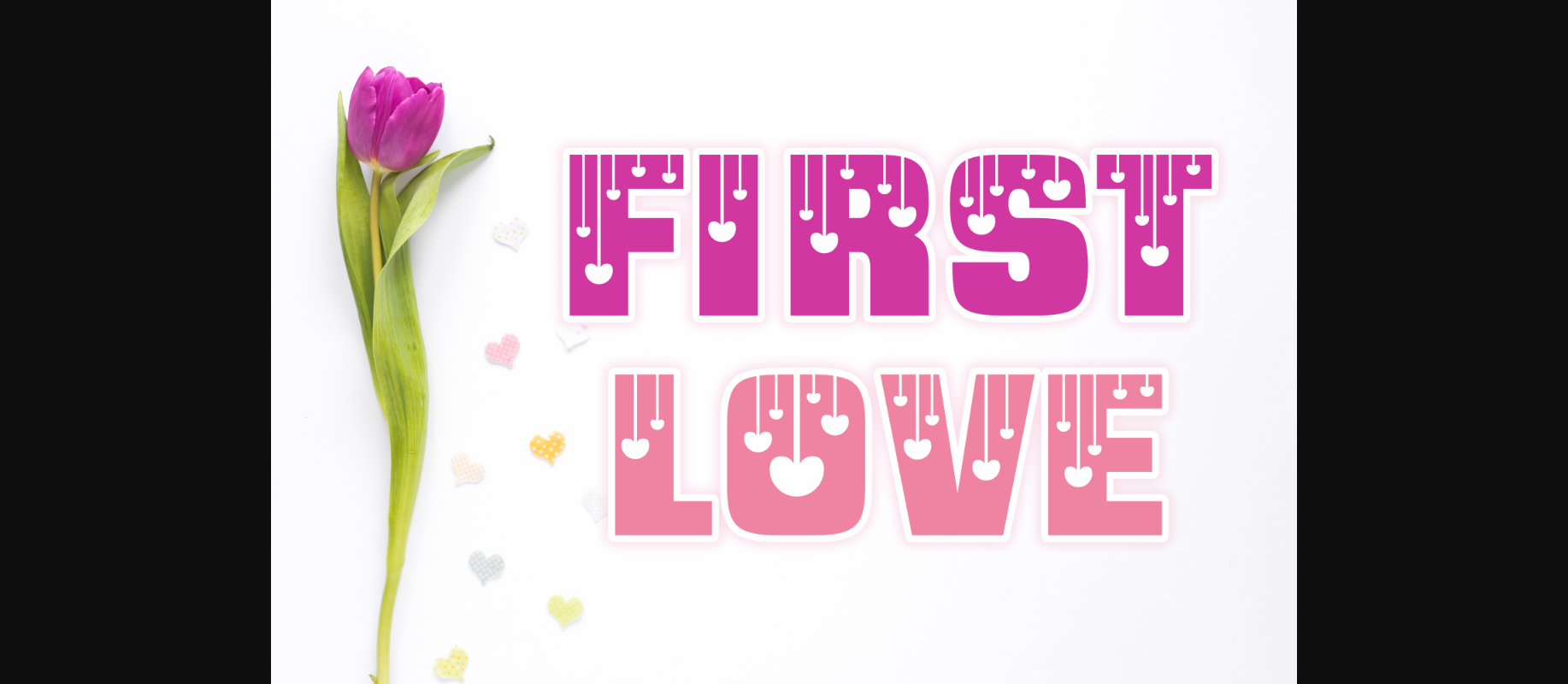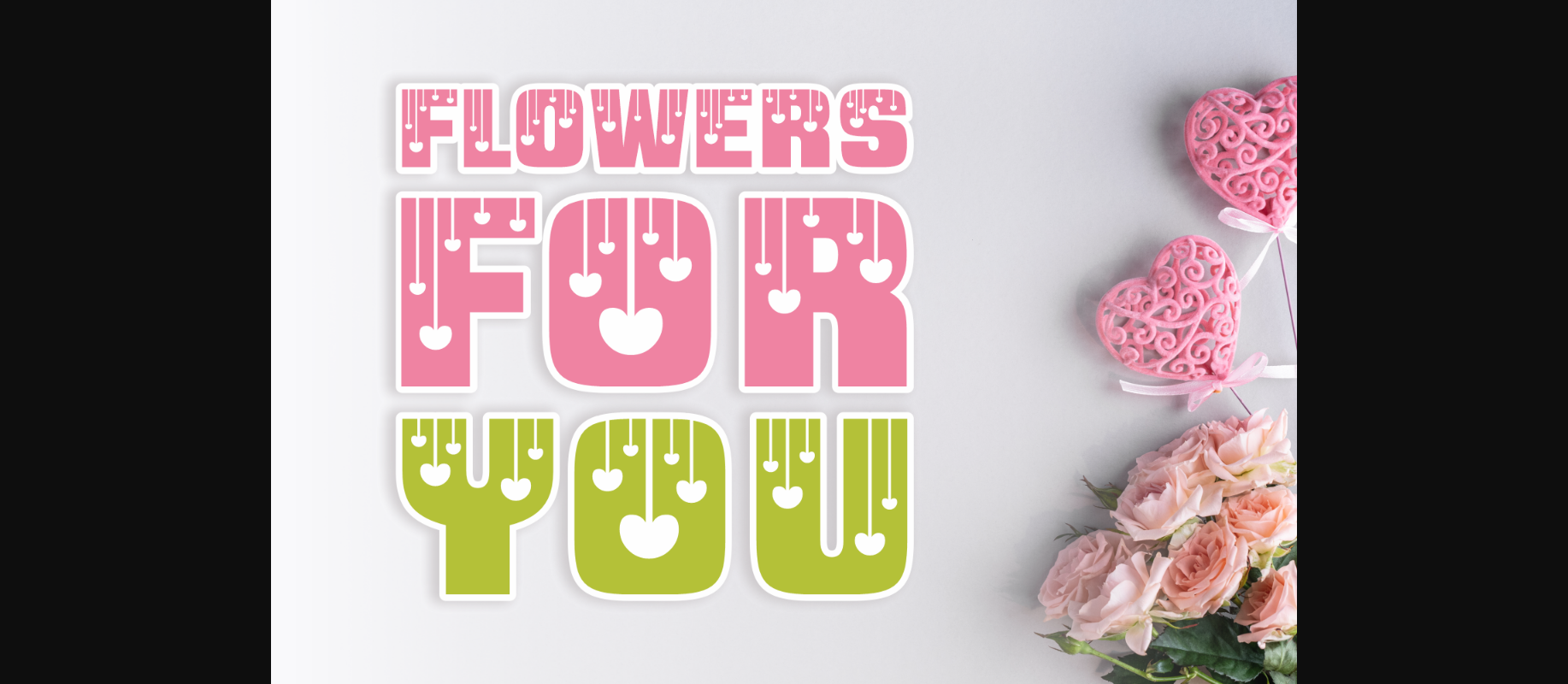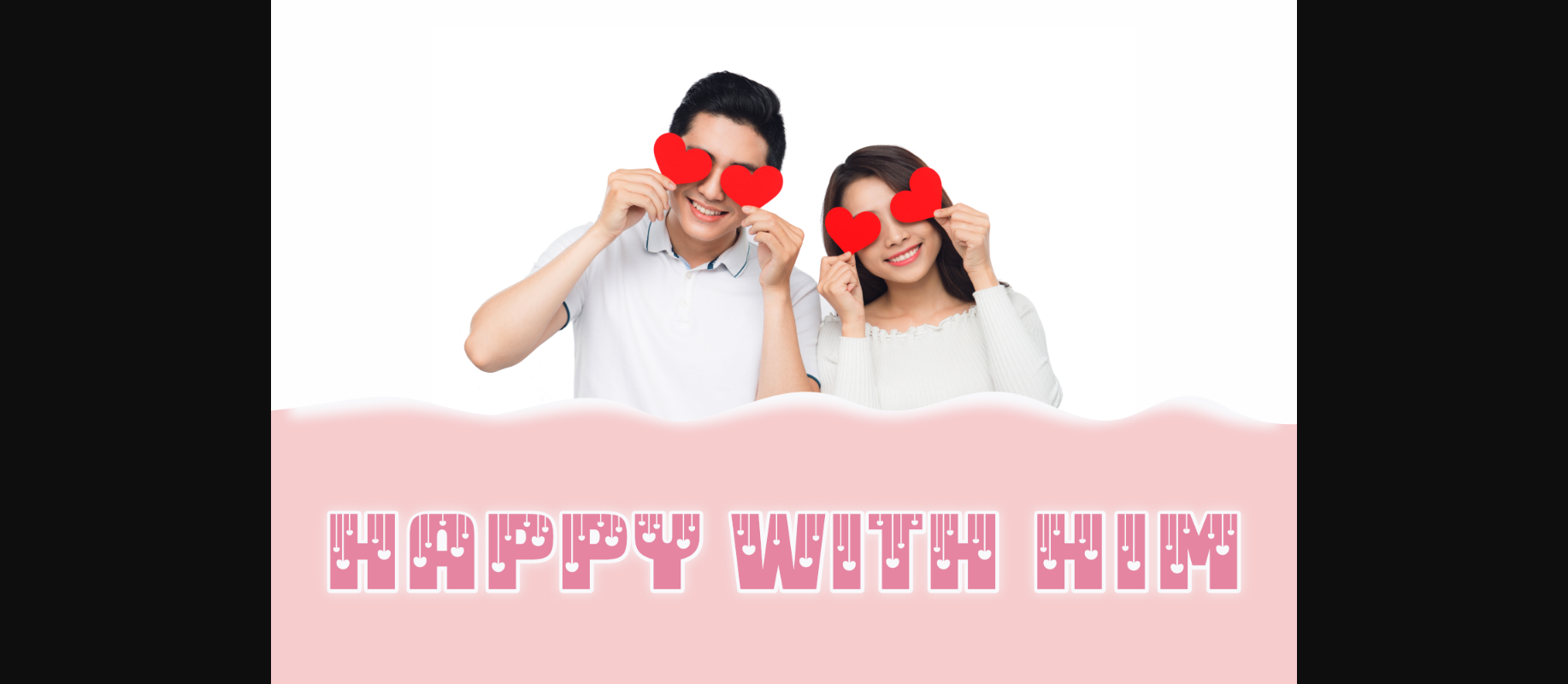
About First Love Font
First Love is the sweetest decorative font out there. Featuring delicate hearts throughout its letters, First Love will help you add the right amount of cuteness to your designs.